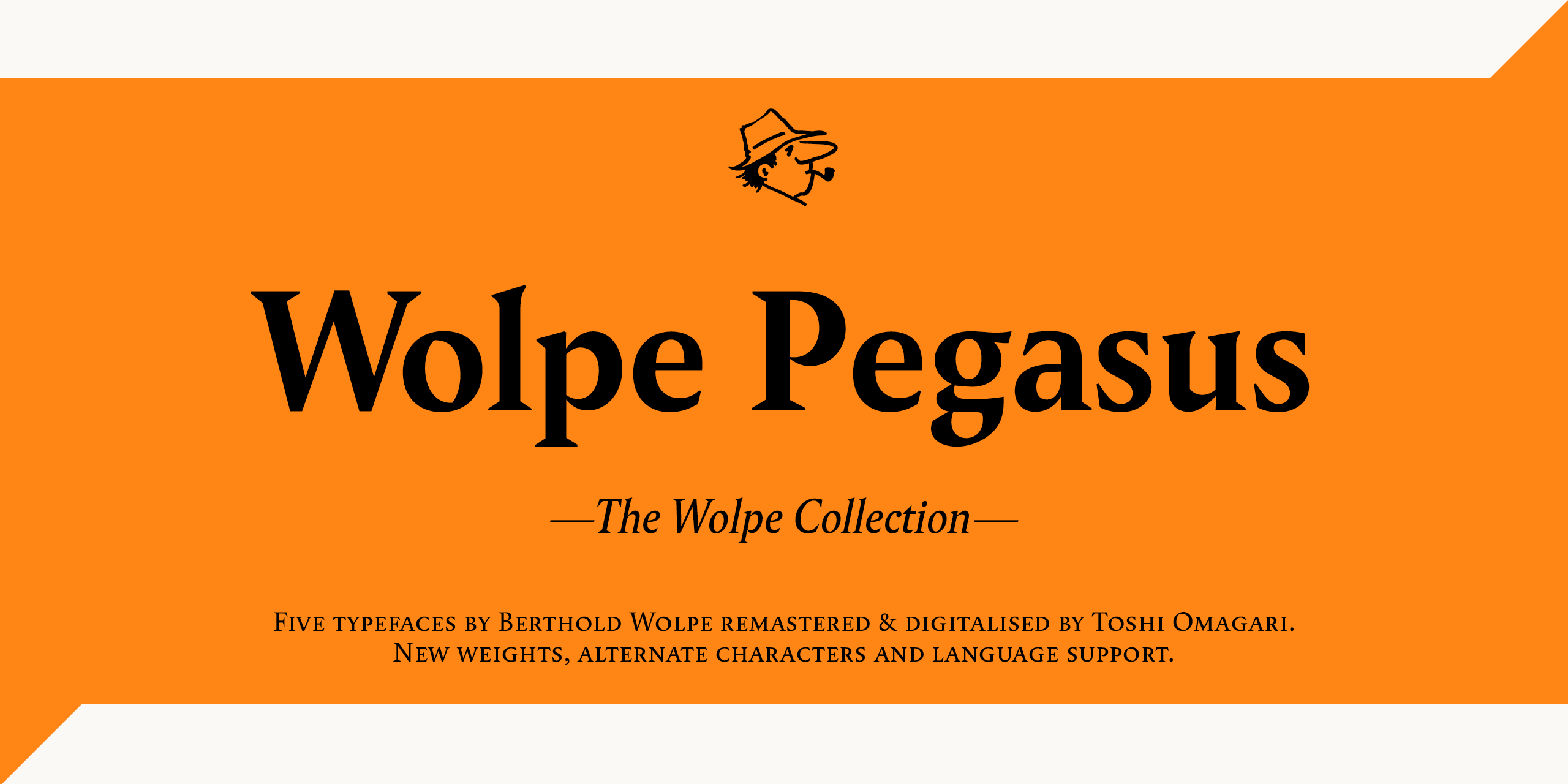
Wolpe Pegasus Font is a distinguished and timeless serif typeface, celebrated for its exceptional readability, elegant proportions, and classic yet distinctly modern appeal. Designed by Berthold Wolpe, it marries traditional characteristics with a sturdy, purposeful construction, making it an excellent choice for book publishing, academic journals, corporate branding with a heritage feel, and fine art catalogs. Imagine it gracing the pages of a literary masterpiece, providing clear and comfortable reading for a scholarly thesis, or lending an air of intellectual dignity to museum exhibit descriptions. This font is also superb for formal invitations, annual reports, and any project where clarity, dignity, and an enduring sense of classic beauty are paramount. It doesn't just display text; it invites the reader into a world of established knowledge and refined communication.
What makes Wolpe Pegasus Font so exciting is its unique blend of classical warmth and robust legibility. It possesses a distinctive character, with subtle irregularities and a lively rhythm that give it a humanistic charm, making long passages of text a pleasure to read. This unique quality makes it a fantastic choice for designers looking to create visuals that are both deeply trustworthy and aesthetically pleasing. It’s a font that speaks with a wise and authoritative voice, making it ideal for brands and content creators who want to convey reliability, a rich heritage, and a sophisticated identity that stands the test of time. Its elegant appeal makes any text, from headlines to footnotes, feel more significant and visually harmonious.
The Wolpe Pegasus Font family typically offers a range of weights and styles to provide comprehensive design flexibility and allow for nuanced typographic expressions suitable for modern applications. You can generally expect to find essential members that support diverse layout needs, such as:
Wolpe Pegasus Regular
Wolpe Pegasus Italic
Wolpe Pegasus SemiBold
Wolpe Pegasus SemiBold Italic
Wolpe Pegasus Bold
Wolpe Pegasus Bold Italic
These various weights and styles, often accompanied by features like ligatures and different figure sets (lining and oldstyle), empower designers to create effective visual hierarchies, emphasize important information, and maintain a consistent, polished, and historically rich look throughout all digital and print assets. The opportunity to utilize Wolpe Pegasus Font Free Download is an excellent way to experience its iconic beauty and versatile elegance for your personal projects.